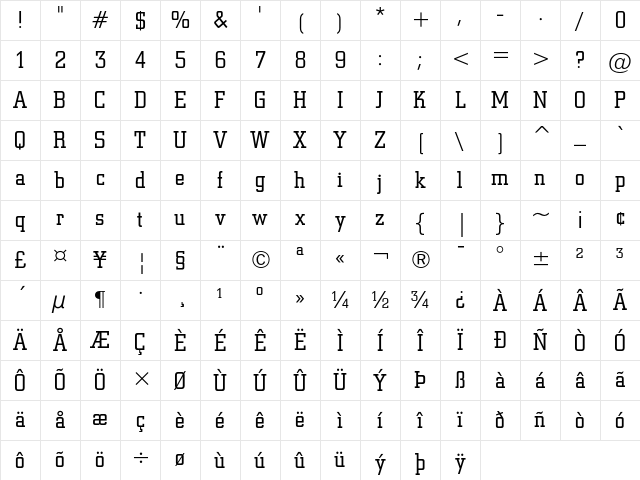
Square Slabserif 711 Light Free Font
Design Context for Square Slabserif 711
Square Slabserif 711 features prominent, blocky serifs that give it a confident, grounded presence - equally at home in editorial settings and bold branding work. Its slender proportions lend an understated elegance to any composition.
Pro Tip: Use Square Slabserif 711 for headlines and subheadings where its slab serifs can make an impression. It also holds up well in mid-size body copy thanks to its sturdy construction.